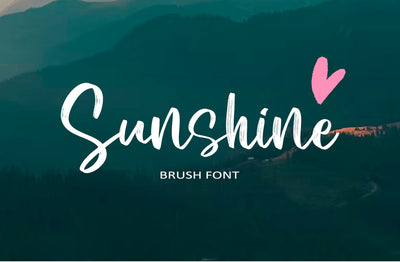
Sunshine Brush Script Font
Introducing Sunshine, a handcrafted brush font! This bold, upright style, free-flowing and confident brush font is designed to easily fit into any design project! And not to mention that it looks great in both upper and lower case, all of this together giving you a strong brush stroke. Sunshine is a brush font that you can use and enjoy again and again, for anything from promotional materials and handwritten quotes, to product packaging, merchandise, clothing design, and branding projects.
Sunshine - a casual, arty Hand Script consisting of upper and lowercase letters, punctuation and numerals.